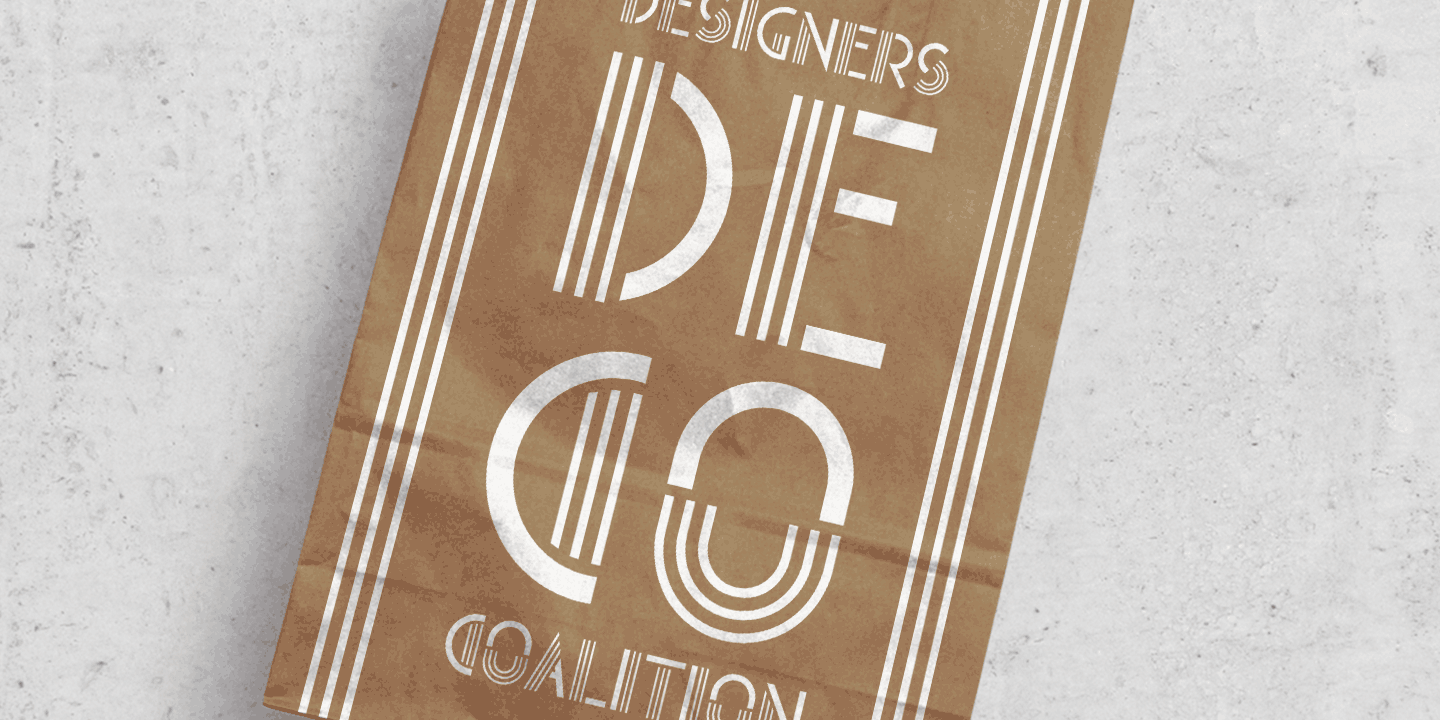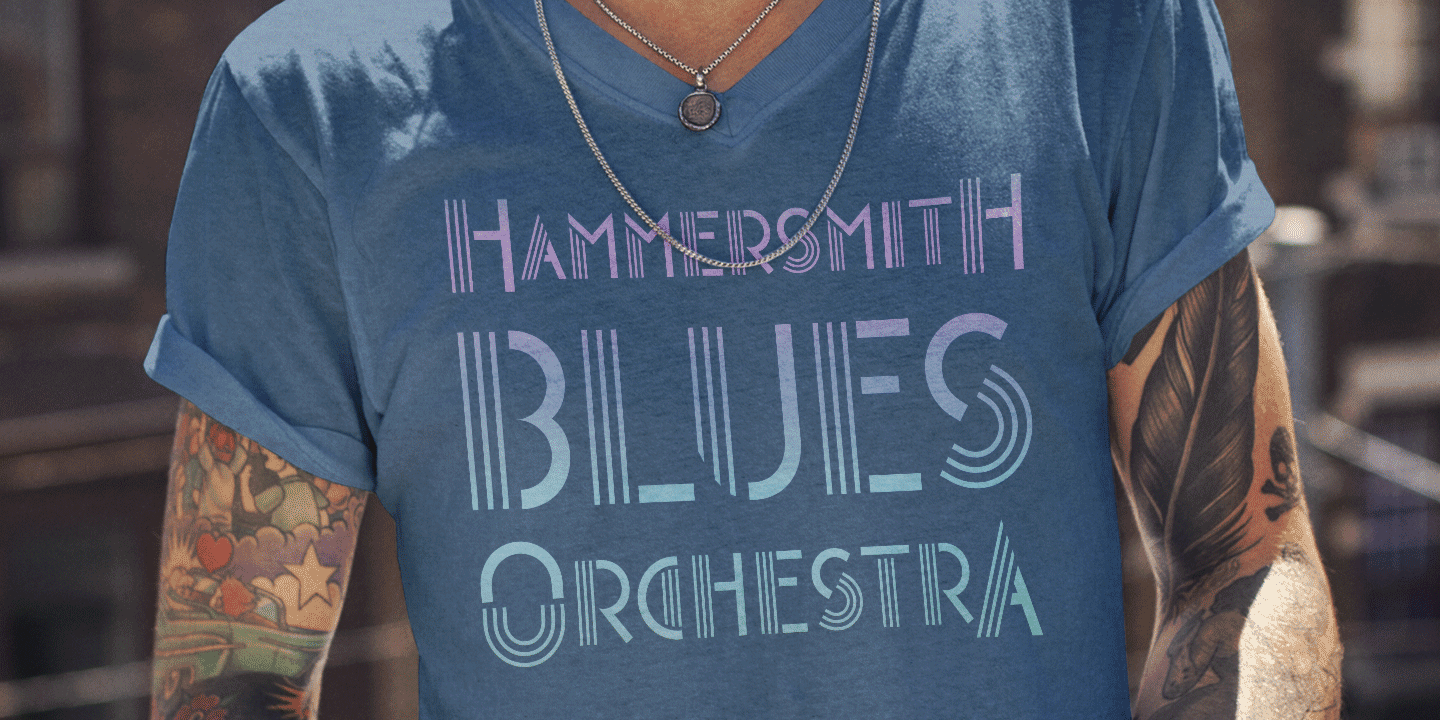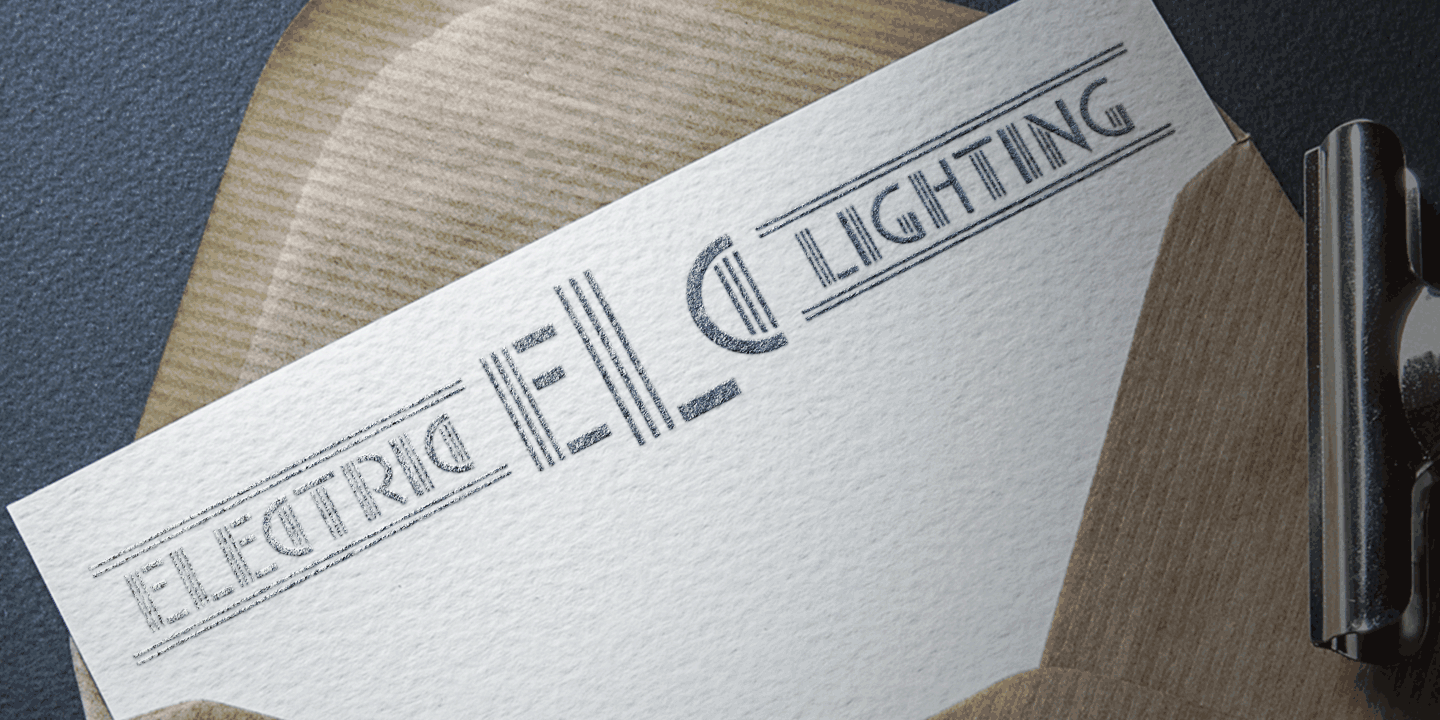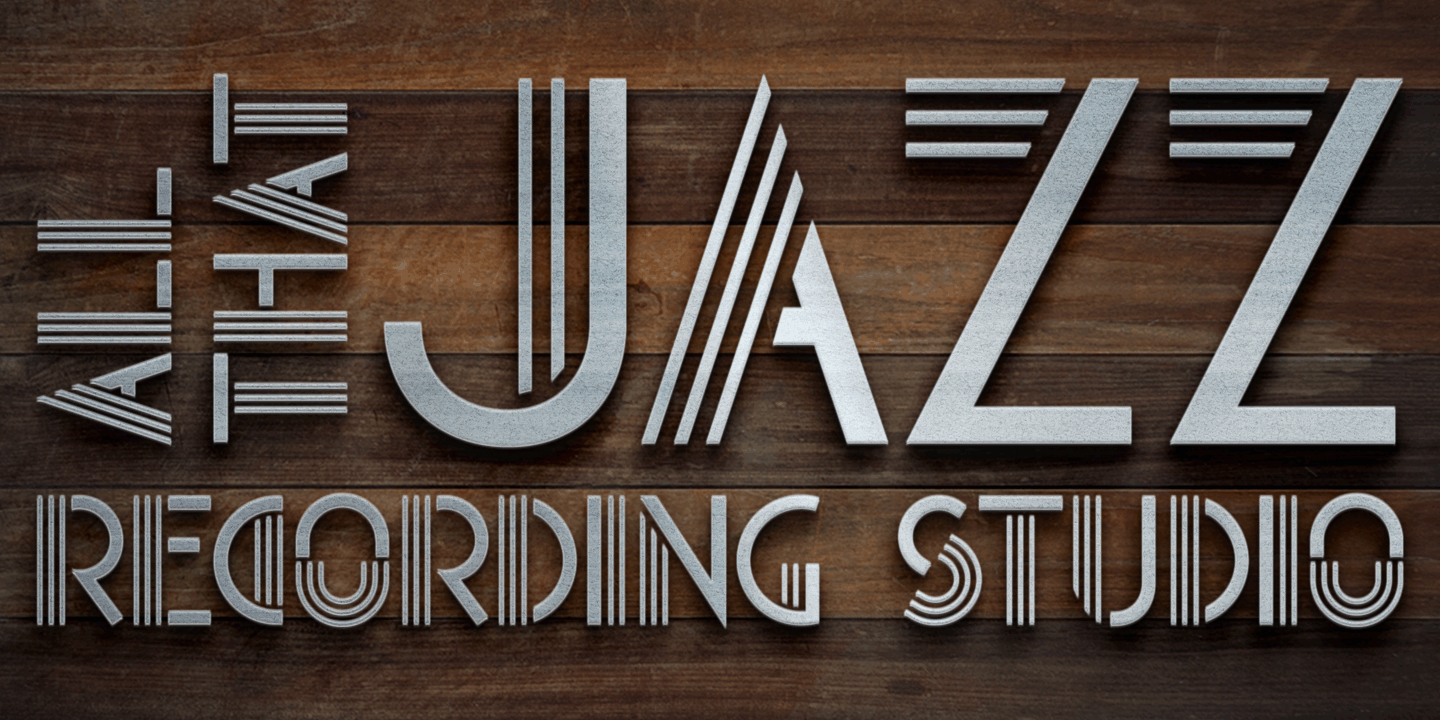
Vice Monogram
Font Family by Monogram Fonts Co
The source of inspiration for Vice Monogram is an Art Deco letterset from a 1915 publication containing classic and modern monogram patterns for embroidery. This Art Deco monogram style has been redrawn, balanced, and brought into the digital age. Vice Monogram can create one-, two-, or three-letter monograms as well as basic headline and titling settings. By default, Vice Monogram types in a horizontal format, but by utilizing Opentype Contextual Alternates, you can typeset in a three smallcap or smallcap-Capital-smallcap diagonal format as well! It is a refined vintage look that is perfect for a wide array of classic personalization settings.